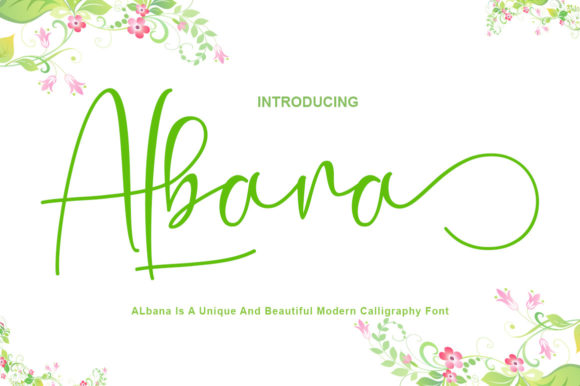
Unleash the captivating allure of Albana Font, a mesmerizing script font that embodies timeless elegance with a dash of contemporary flair. Step into a world of impeccable form, where each letter dances across the page with effortless grace, inspired by the enduring charm of classic calligraphy.
Immerse yourself in the captivating beauty of Albana Font's ravishing style, crafted to ignite your creative spark. Its PUA encoding holds the key to a treasure trove of breathtaking glyphs and swashes, empowering you to weave intricate designs with unparalleled ease.
Picture your designs adorned with the exquisite strokes of Albana Font, where every word transforms into a work of art. Its meticulously crafted curves and graceful flourishes evoke a sense of timeless sophistication, adding an air of distinction to your creations.
Whether you're designing captivating logos, elegant invitations, or enchanting social media posts, Albana Font is your muse, guiding your imagination towards extraordinary results. Its versatility knows no bounds, seamlessly adapting to a myriad of design projects, from classic to contemporary and everything in between.
Embrace the allure of Albana Font and watch as your designs blossom into masterpieces that captivate and inspire. Let its timeless elegance and contemporary charm elevate your creations to new heights, leaving an unforgettable mark on the digital landscape.